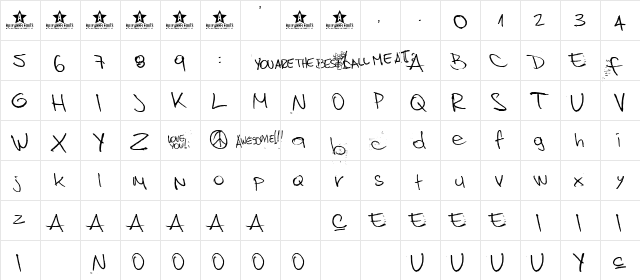
Bedspread Assassin Regular
| Foundry | Billy Argel |
| Designer | Billy Argel |
Design Context for Bedspread Assassin Typeface
Bedspread Assassin is a composed and adaptable typeface that performs quietly and consistently across a wide range of design contexts.